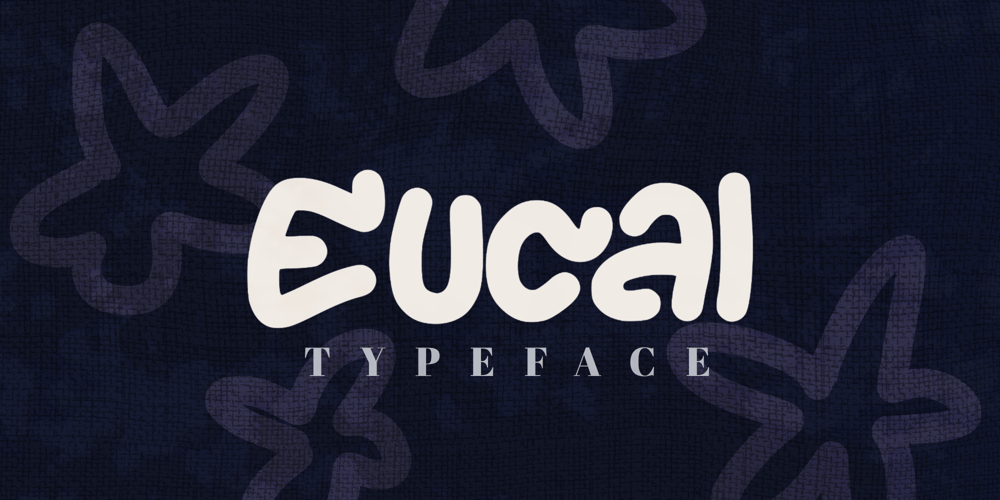
Eucal Font Family was designed by Zaizafun Hanifah and published by Daily Studio. Eucal contains 1 styles and family package options. Eucal is a typeface designed by Daily Studio. elevate your projects with cool and smooth typeface design. This typeface will pair beautifully with various fonts and function well with the project you are working on. This typeface includes full lowercase, uppercase, numbers, punctuation, and standard multilingual letters. perfect for headlines, branding, cover designs, and posters.